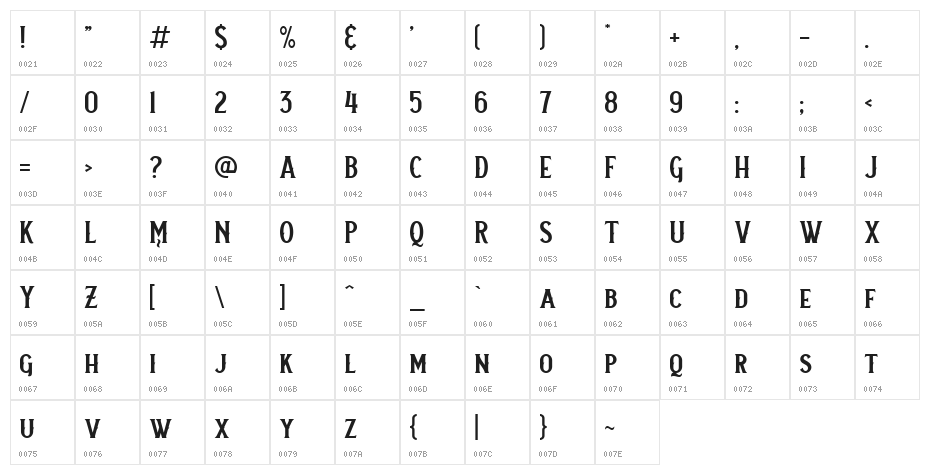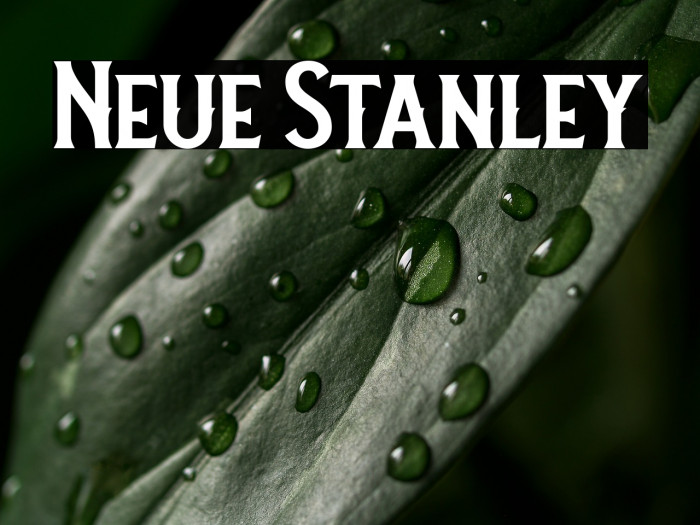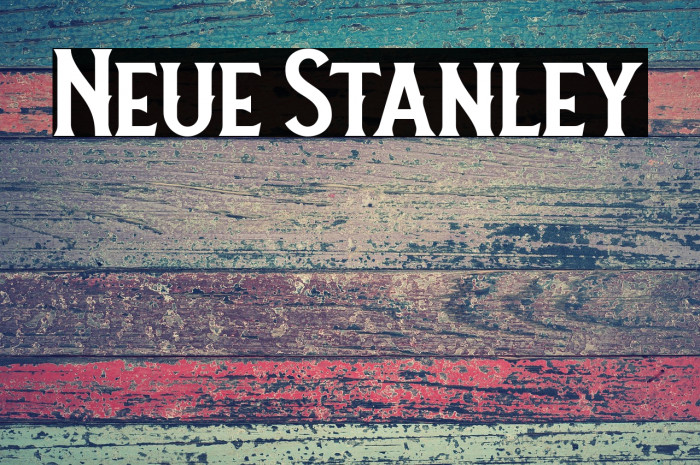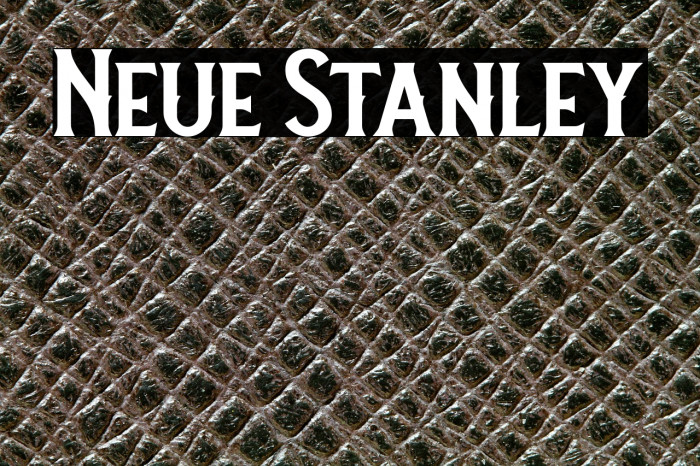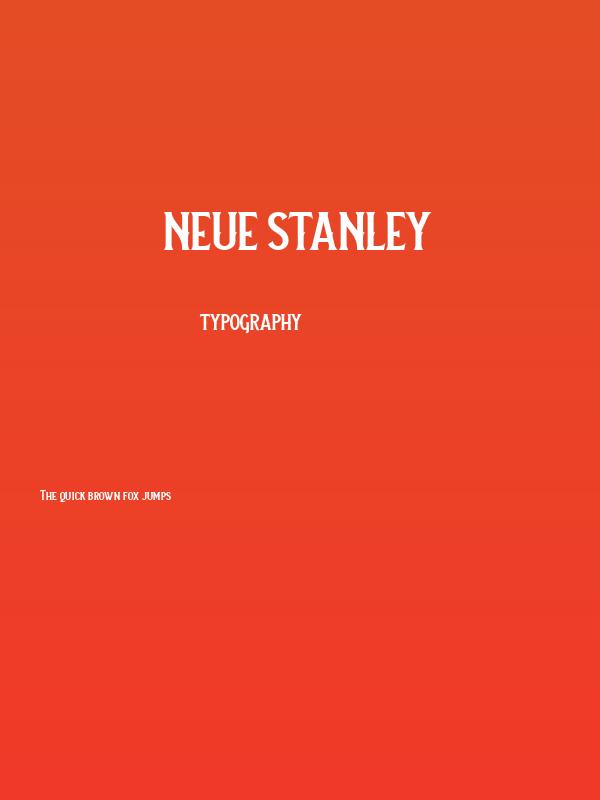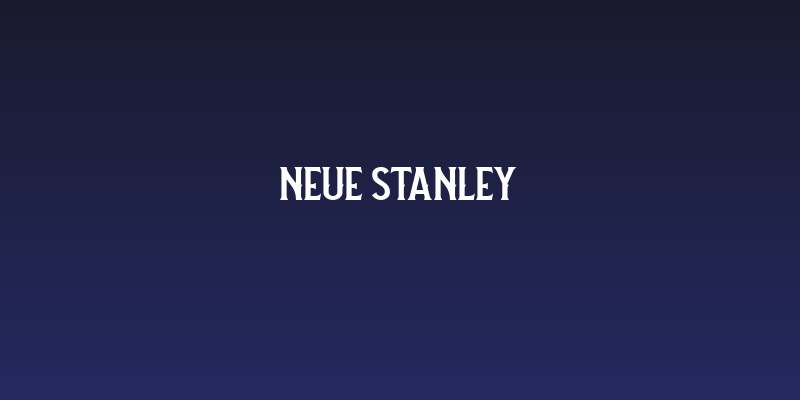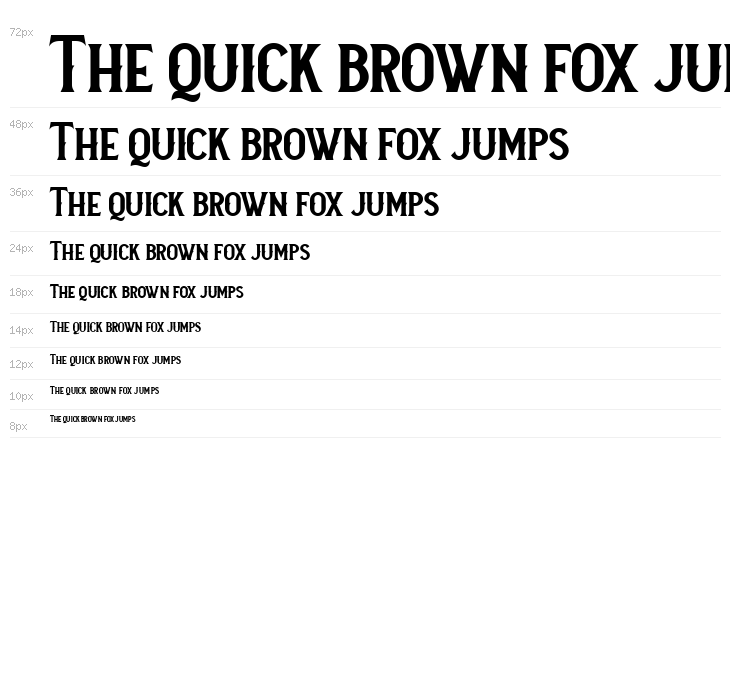
Neue Stanley Font
Neue Stanley Description
This font features a bold and striking design with a vintage flair, characterized by its sharp serifs and strong vertical lines. The uppercase letters exhibit a commanding presence, while the lowercase letters maintain a consistent style that complements the overall aesthetic. The numerals are robust and align well with the alphabetic characters, ensuring readability and balance. Special characters are crafted with the same attention to detail, making them suitable for a variety of design needs. The font's unique style is reminiscent of early 20th-century typography, offering a sense of nostalgia and elegance.
| Proposed Projects | Ideal for branding, poster design, book covers, and editorial layouts that require a vintage or classic touch. |